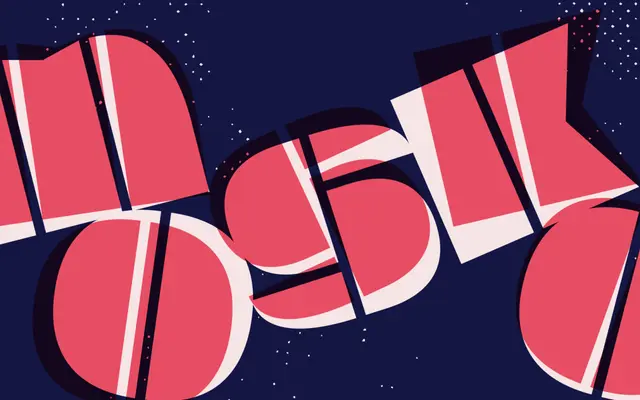
Mosko
A single-weight all-caps stencil display typeface by Reese Lee, drawn from Cold War Berlin's graphic culture and built for large-scale, assertive use.
Designed by Reese Lee and released in May 2023, Mosko takes its name as an anagram of a Soviet-era Berlin restaurant called KOSMOS. The glyphs are bisected down their vertical centreline, a structural metaphor for the Berlin Wall's division of the city, with letterforms sharing component parts across the alphabet. There is no lowercase by design: the typeface is intended for shouting, not conversation, making it well suited to posters, signage and protest graphics.
A single-weight all-caps stencil display typeface with heavy, chunky construction and no lowercase, explicitly designed for large-scale display use with a strong graphic character.